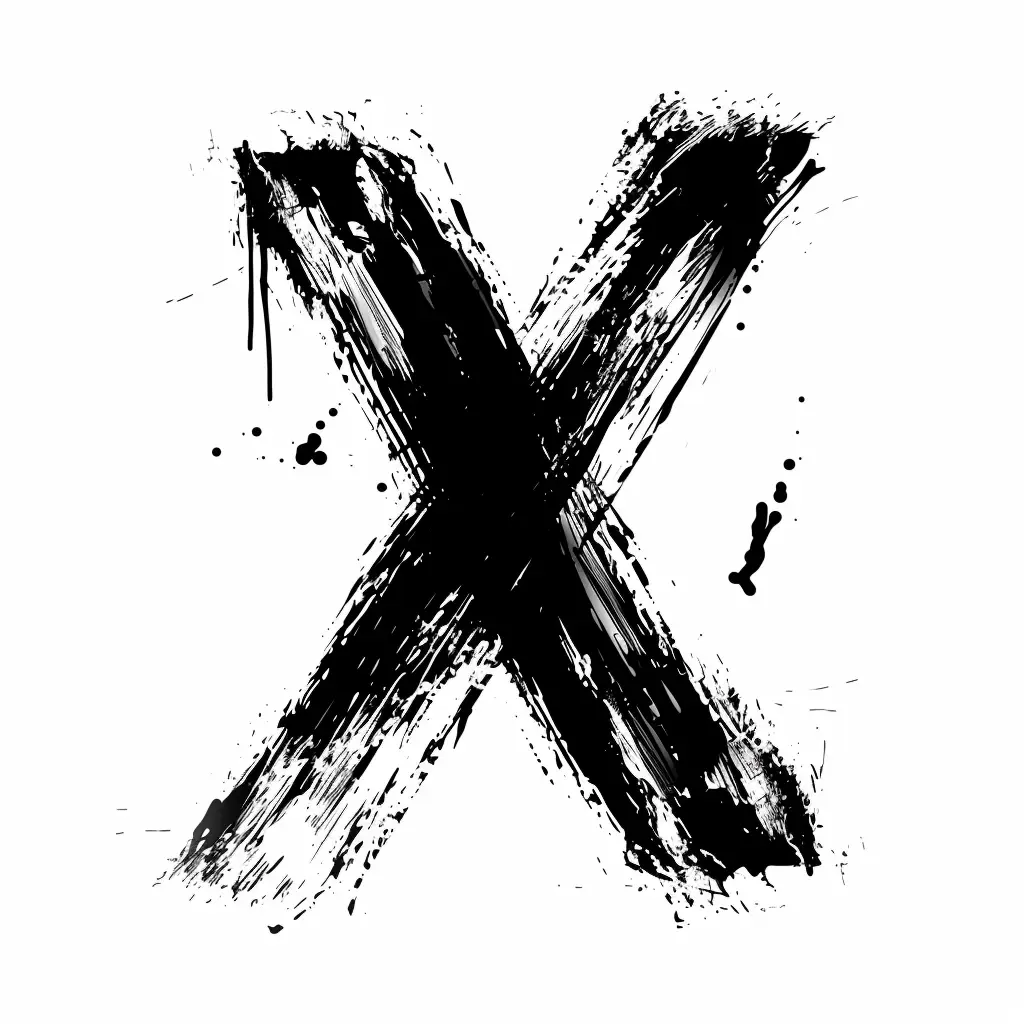
letter X brush ink black and white font art stroke
The image features a bold, black "X" created with rough, brushstroke-like textures and splatters, set against a plain white background. The style is grungy and expressive, with uneven edges, drips, and scattered ink spots enhancing its dynamic, hand-painted appearance. The high-contrast black-and-white color scheme emphasizes the raw, artistic feel of the letter.